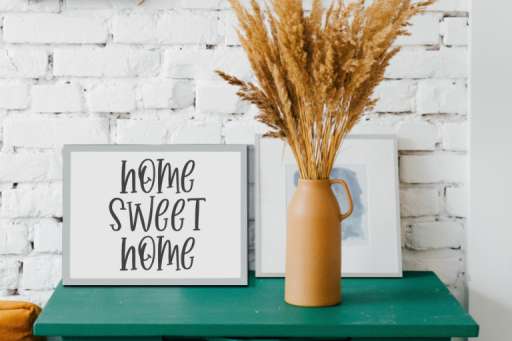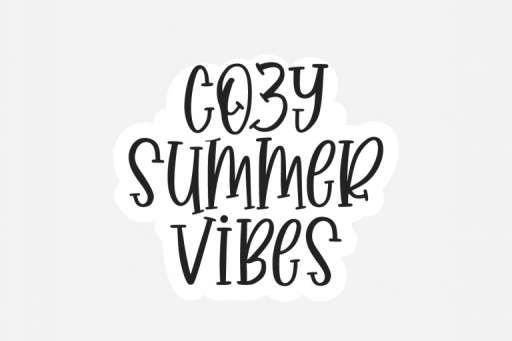
Sophie Jasper Font - Farmhouse Font From Jimtype Studio
Sophie Jasper Regular
Sophie Jasper – Quirky Serif
Sophie Jasper is a handwritten sans serif font with a very charming appearance and perfect for many design projects. Looks beautiful for t-shirt design, websites, branding, children’s design, SVG designs, blogs, logos, invitations, playful design, quotes, and more!
Sophie Jasper Font